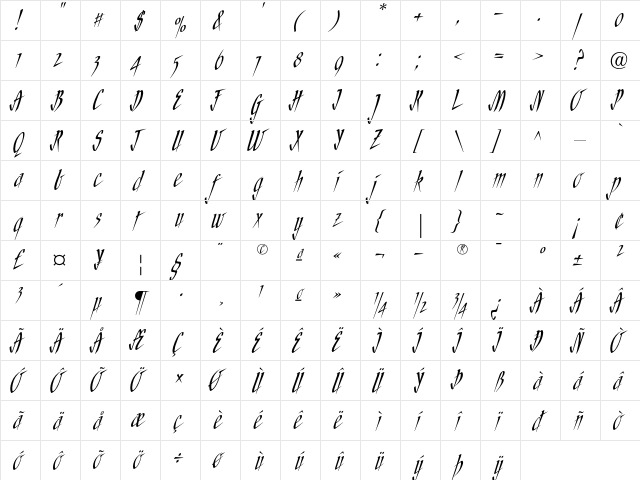
Needlescript ITC Std Regular
| Designer | Mira Vucko |
Design Context for Needlescript ITC Std Typeface
Needlescript ITC Std flows with the natural rhythm of handwritten lettering, making it ideal for designs that call for warmth and personal expression.
Font Pairing: Combine Needlescript ITC Std with a simple geometric sans for maximum contrast — the tension between flowing curves and clean structure is a classic typographic pairing.
Pro Tip: Use Needlescript ITC Std for short runs of text — names, titles, or taglines. Extended body copy in script faces tires the eye quickly.